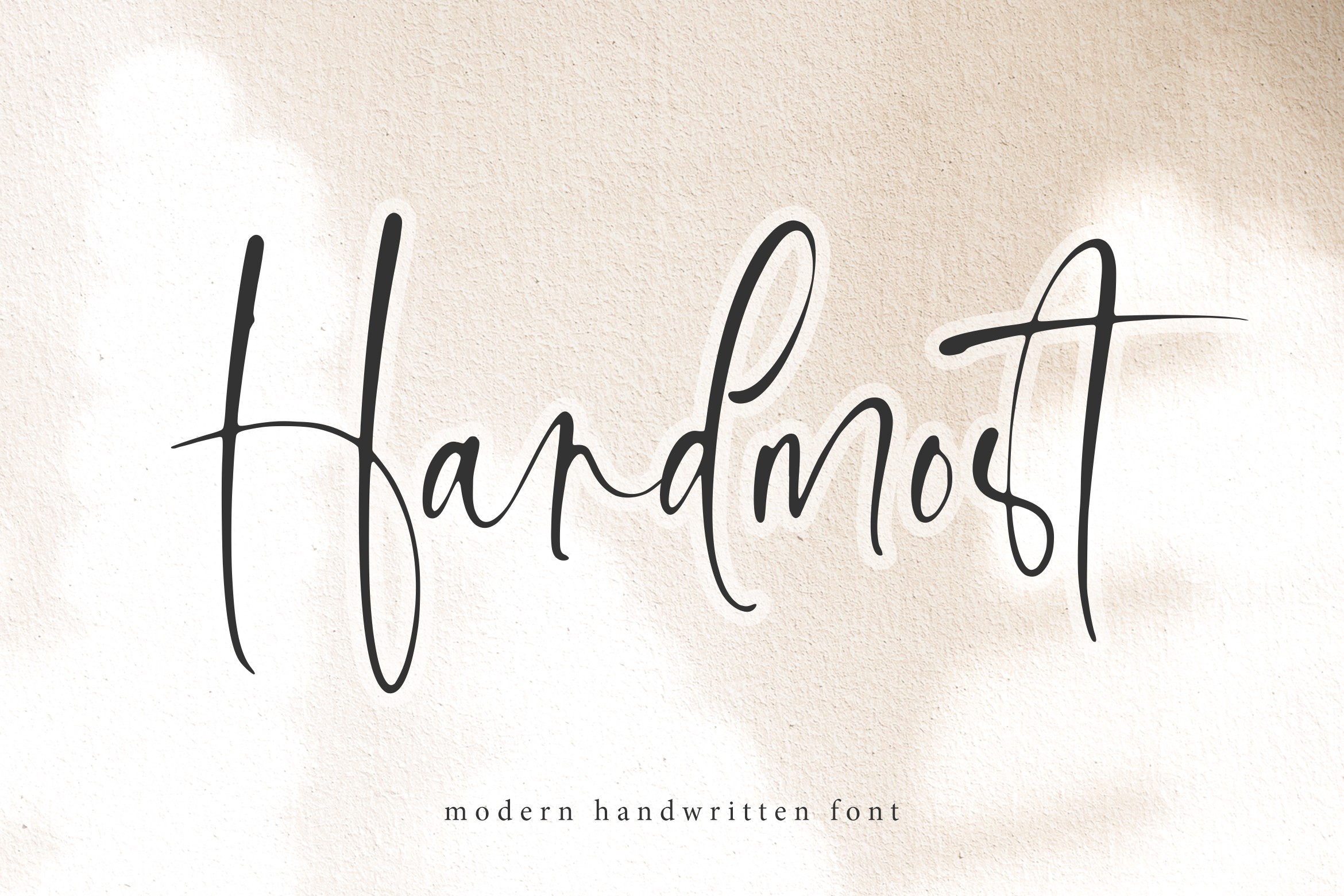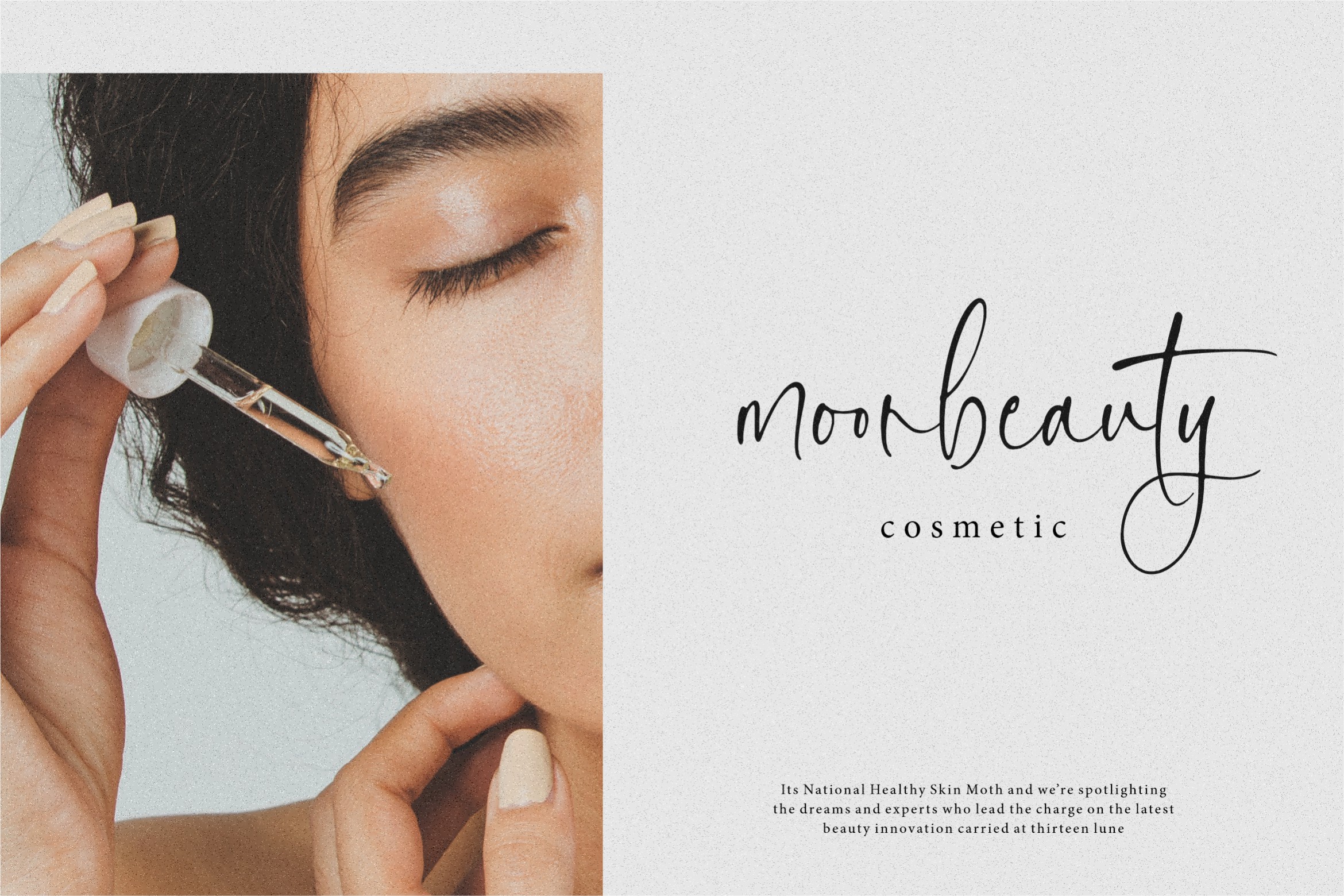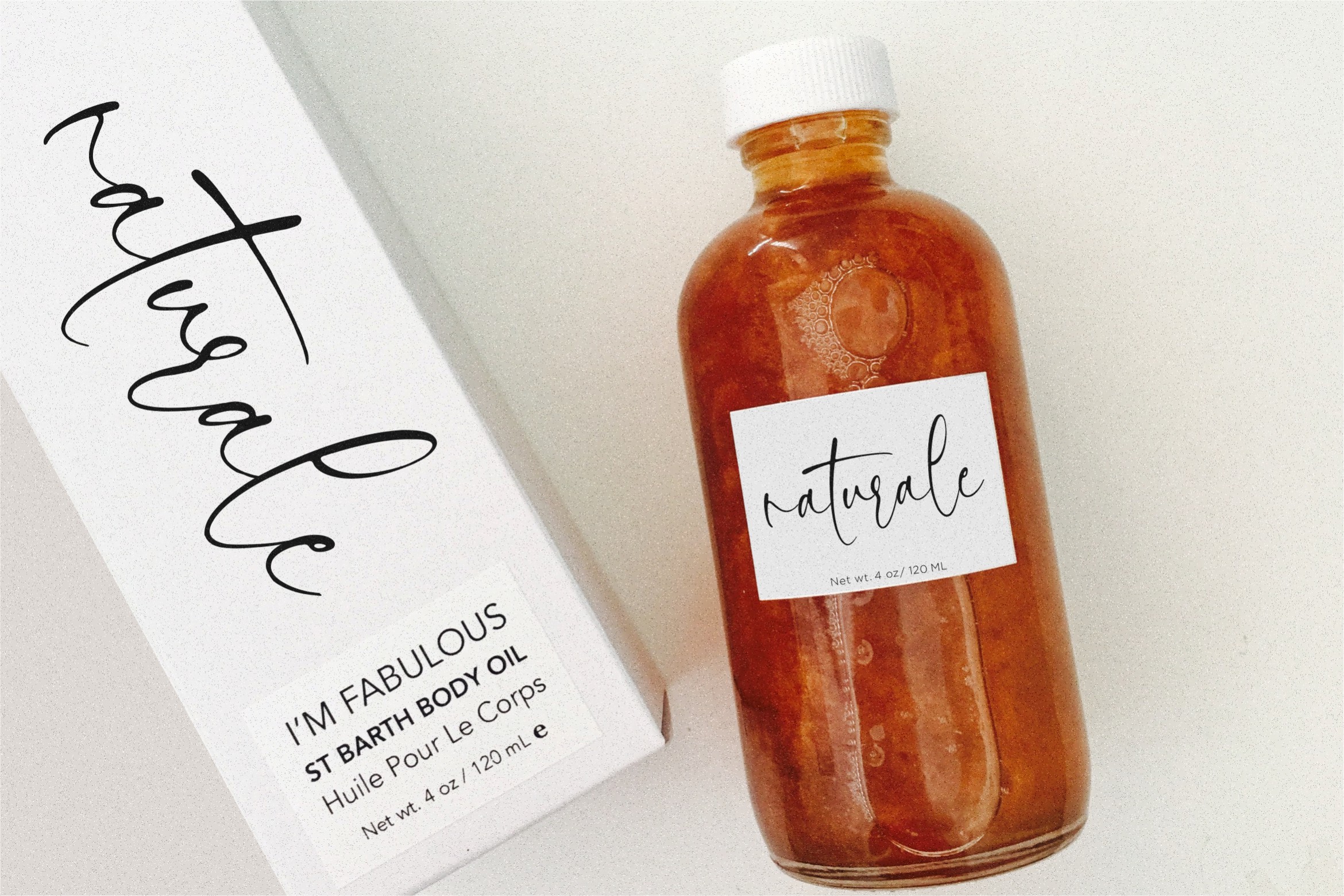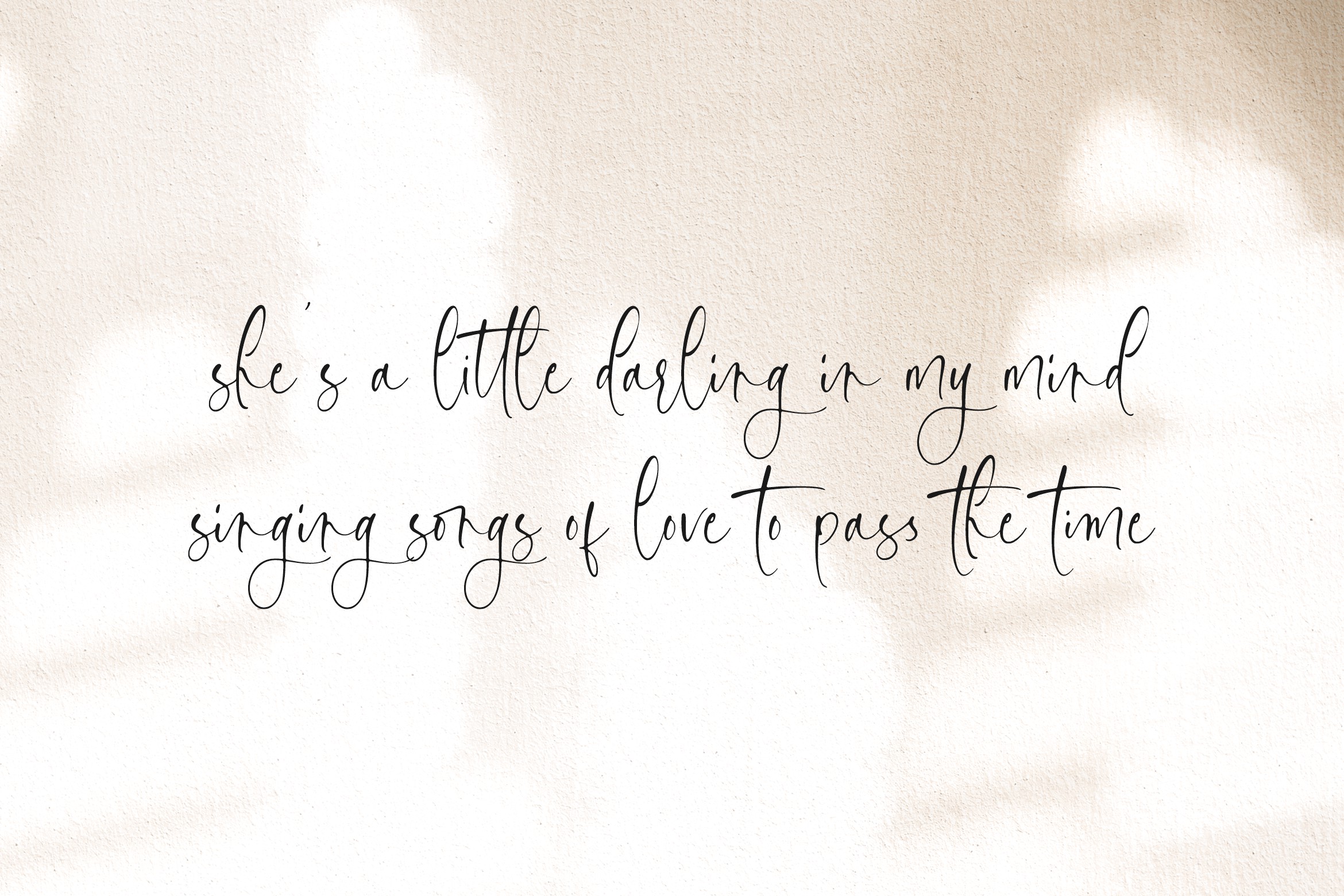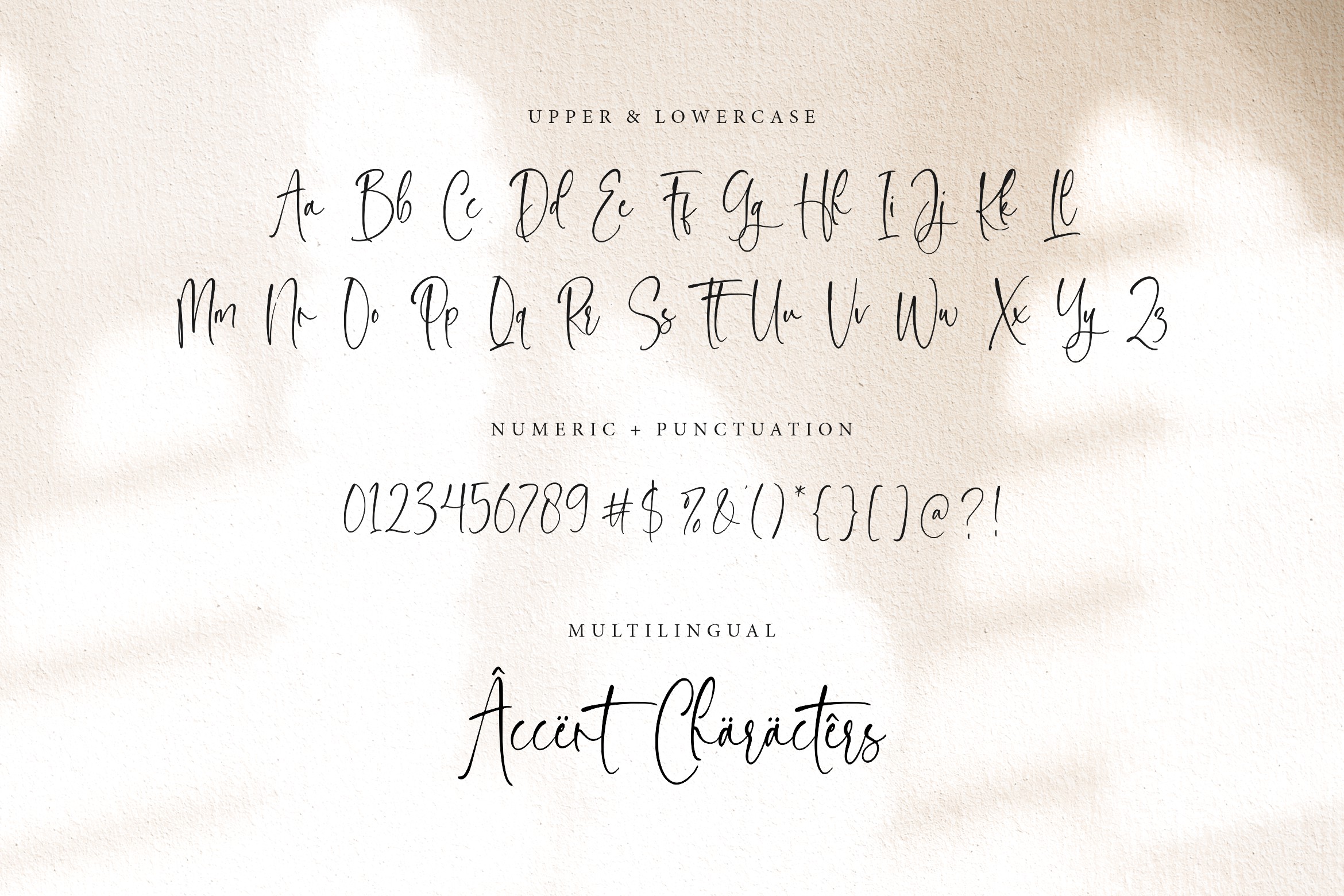
Handmost Free Font
Handmost Free Font is a versatile font that caters to a wide range of design needs. Whether it’s product packaging, branding projects, magazines, social media posts, weddings, or simply expressing words above a background, Handmost rises to the occasion. This font combines style and functionality, making it an ideal choice for various applications. Let Handmost add a touch of creativity and visual appeal to your designs, ensuring they stand out and leave a lasting impression on your audience. This free typeface was designed by a talented Aestherica Studio. If you like it don’t forget to check out the full version.